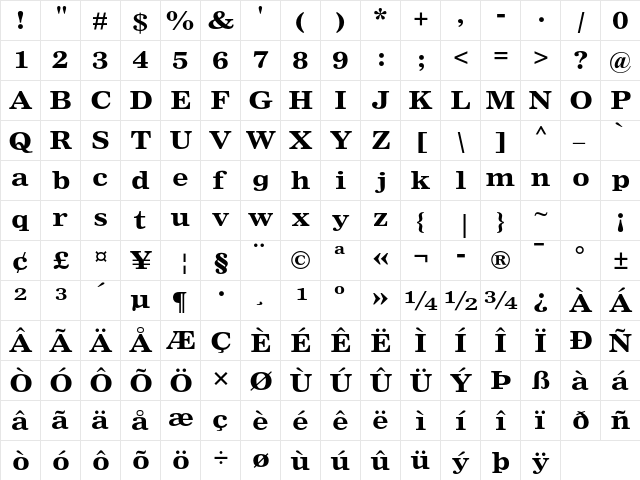
Nimrod Small Ads MT Std Bold
Design Context for Nimrod Small Ads MT Std Typeface
Nimrod Small Ads MT Std offers clean, dependable letterforms without strong stylistic allegiance, making it a practical choice for designers who need flexibility. Its bold stroke weight gives it real presence on the page.
Pro Tip: Pair Nimrod Small Ads MT Std with a font of contrasting weight or personality to build a more expressive typographic hierarchy.